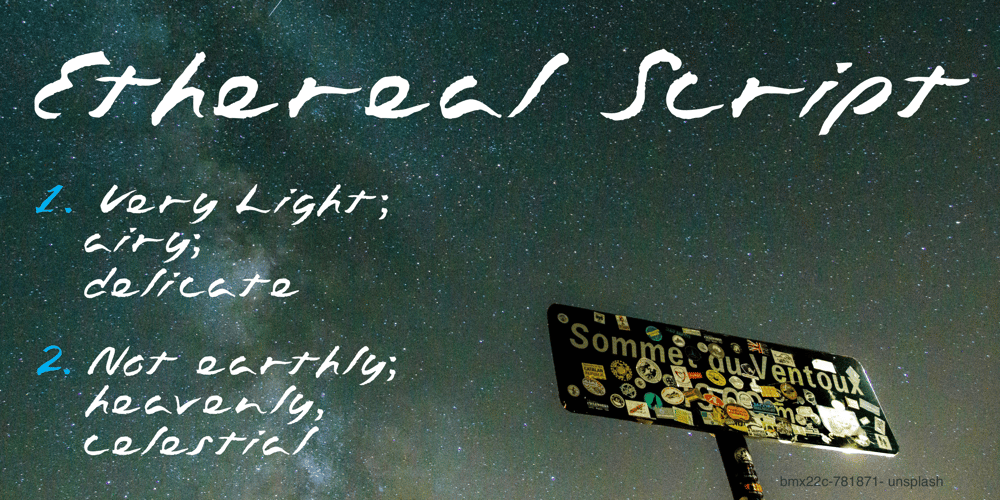
Ethereal Script Font
Ethereal Script Font Font Family was designed by Mark Ibbotson and published by FontHaus. Ethereal Script Font contains 1 styles and family package options. Ethereal Script by Mark Ibbotson is a very casual, informal, and laid-back, hand-written brush script.